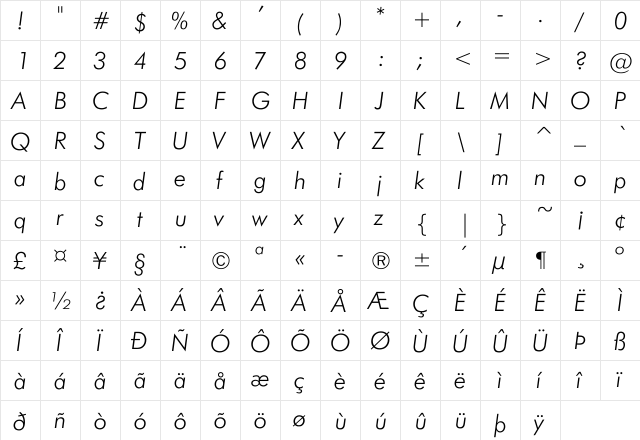
Jensen Thin Italic Regular
Jensen Thin Italic offers clean, dependable letterforms without strong stylistic allegiance, making it a practical choice for designers who need flexibility. The slanted form adds forward momentum and visual energy. Its slender proportions lend an understated elegance to any composition.